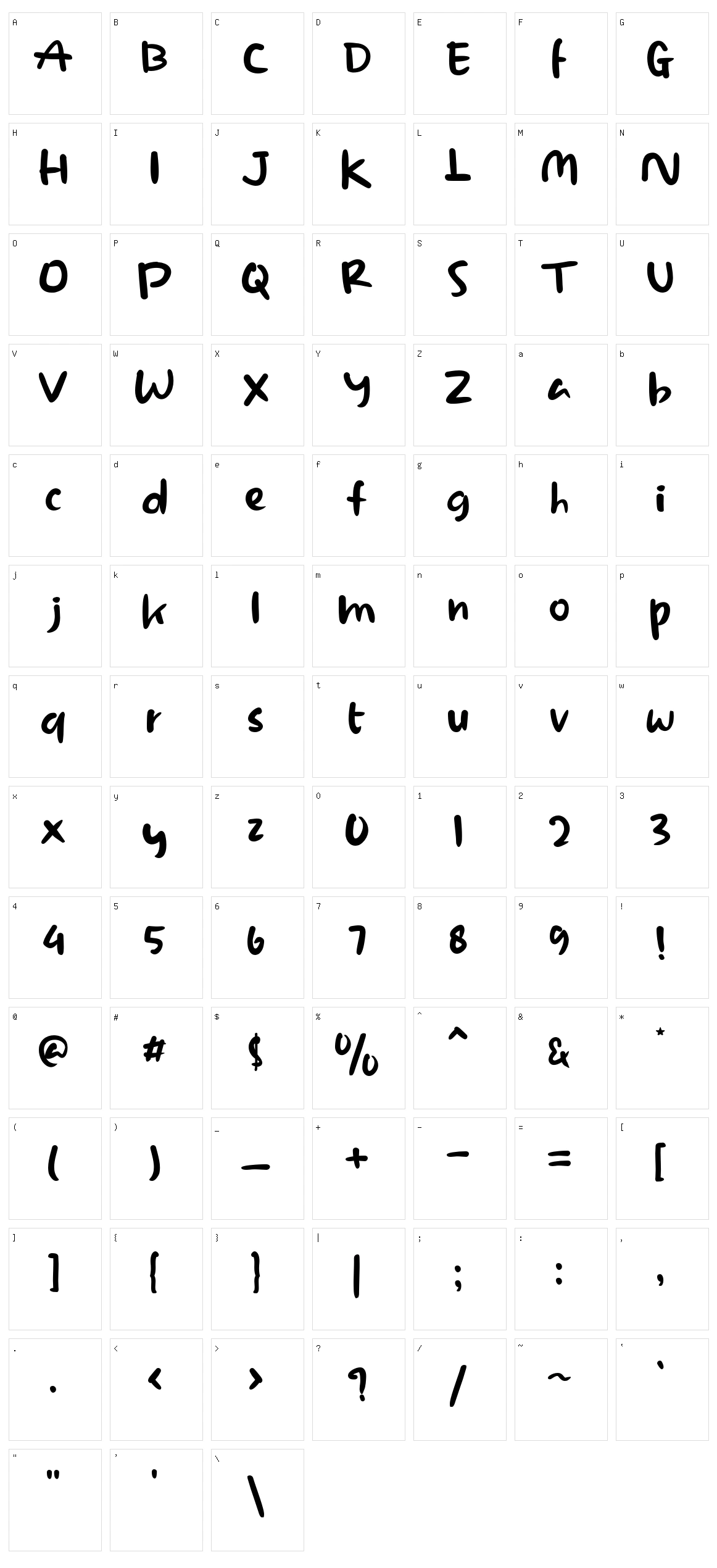
The free font Crufty Craf is carefully designed by Joko Setiono, showcasing a thoughtful balance of creativity and usability and falls under the Script font style. When you download the ZIP file, it contains only 39.02 KB of font files, making it lightweight and quick to download. Please review the license details below to understand permitted usage and distribution rights. If license information is not available, we recommend using this font for personal projects only or contacting the author directly for commercial usage permissions.